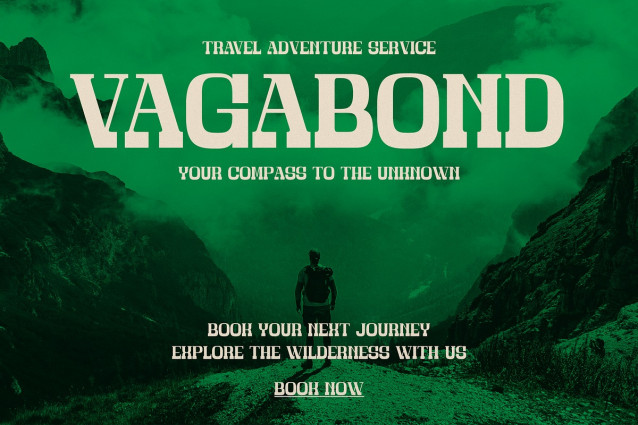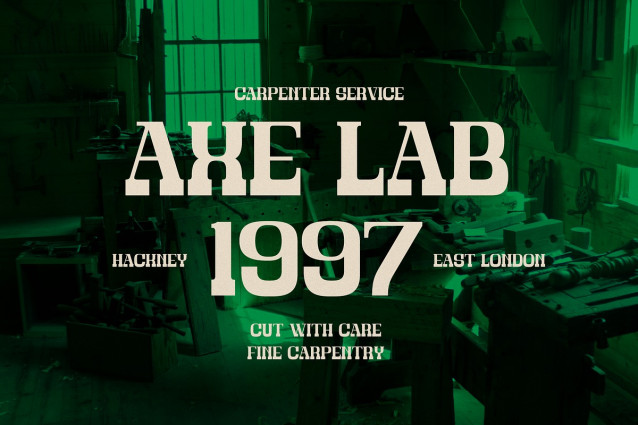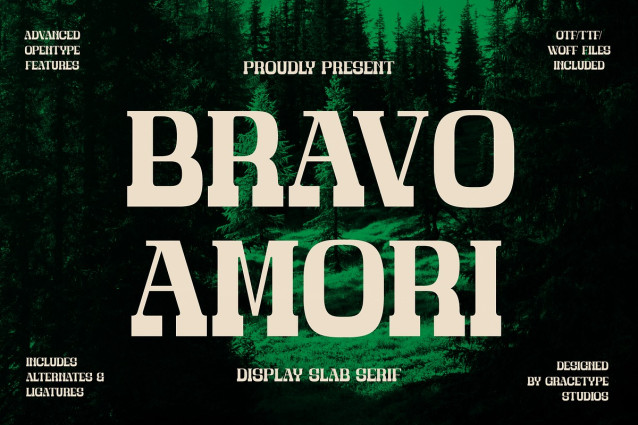
Bravo Amori Font
Bravo Amori Font | Display Slab Serif, from Gracetypestudio, suitable for any projects such as: logos, branding projects, homeware designs, product packaging, mugs, quotes, posters, shopping bags, t-shirts, book covers, name card, invitation cards, greeting cards, label, photography, watermark, special events, and all your other lovely projects that need a Slab Serif taste.